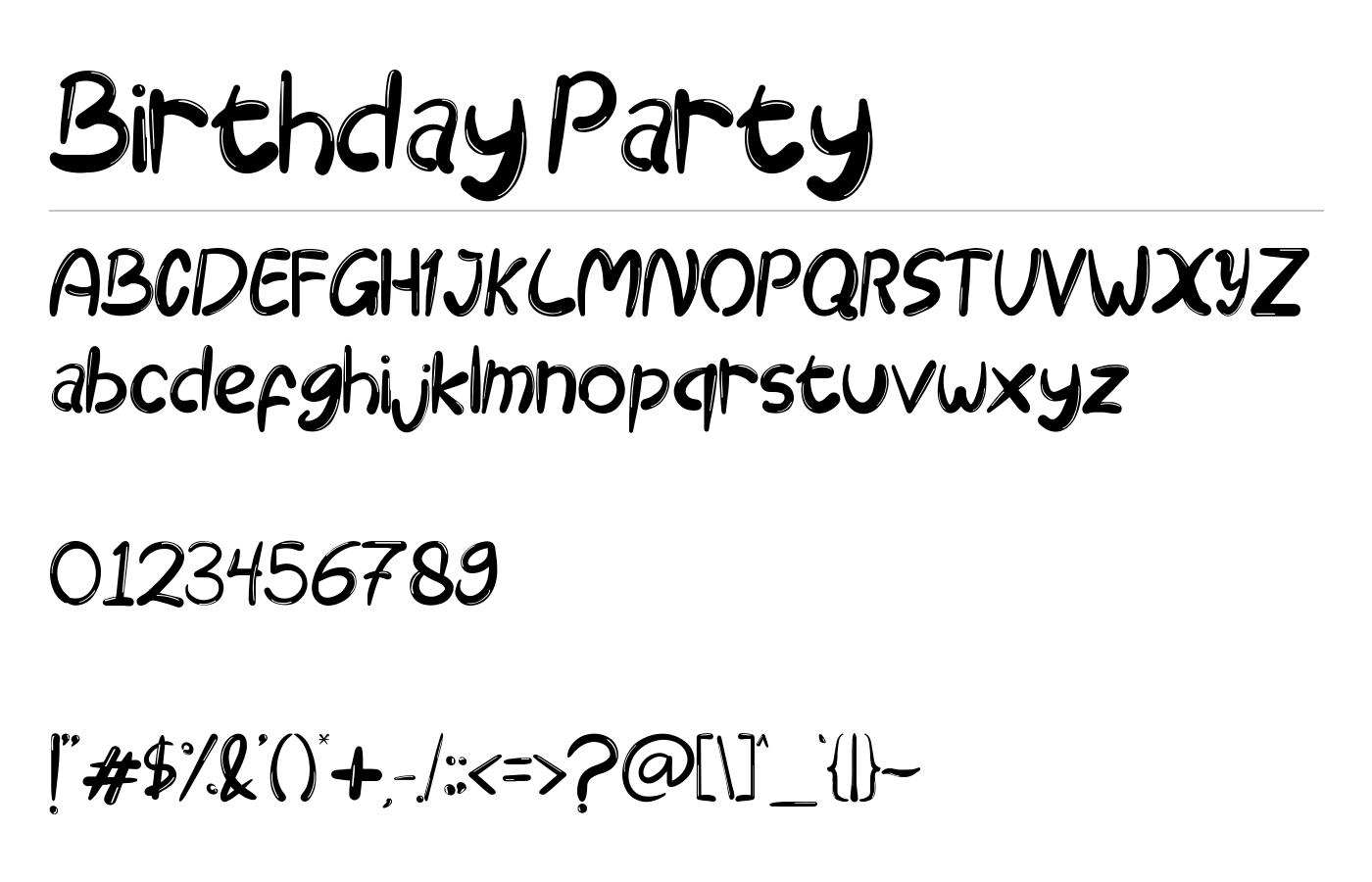
Birthday Party is a playful and casual handwritten font featuring rounded, irregular letterforms with a lively, bouncy rhythm. Its medium weight and friendly curves make it perfect for cheerful, informal designs like party invitations, kids’ materials, and fun branding. This font brings a joyful, approachable vibe that works well in both display and decorative contexts.
Birthday Party Font
About Birthday Party Font
| Font family | Birthday Party Font |
| Designer | Fikri Irvansyah Putra Komara |